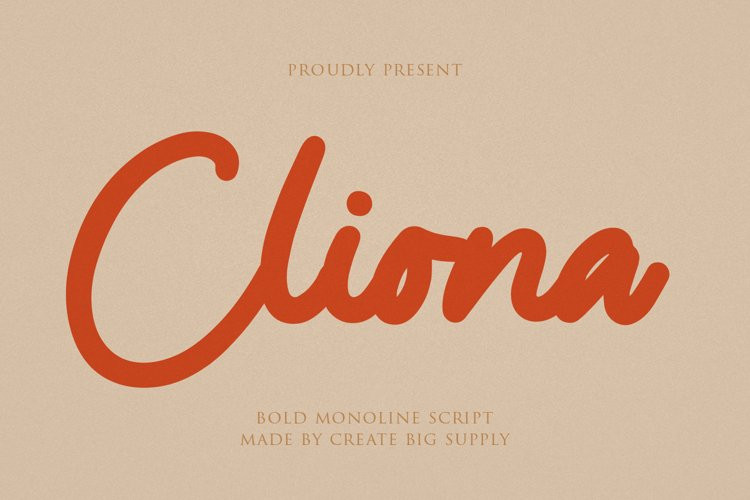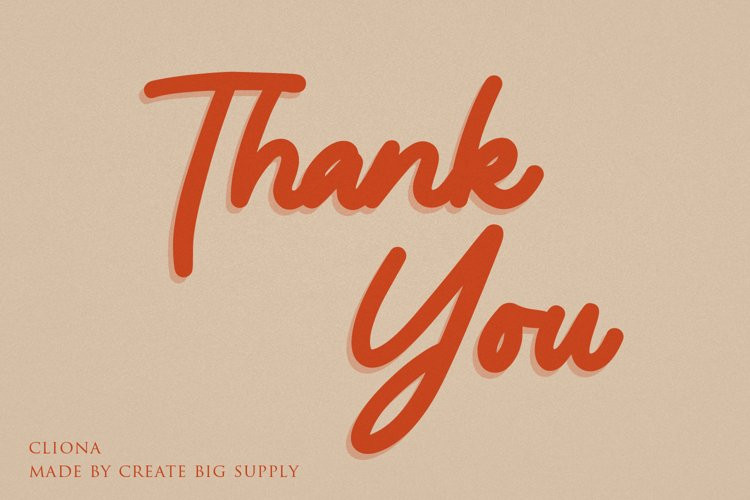
Cliona Font
ClionaCliona Bold Script. Perfect for all your design needs such as branding designs, logos, and more. This font is PUA encoded which means you can access all the amazing glyphs and ligatures easily
Cliona